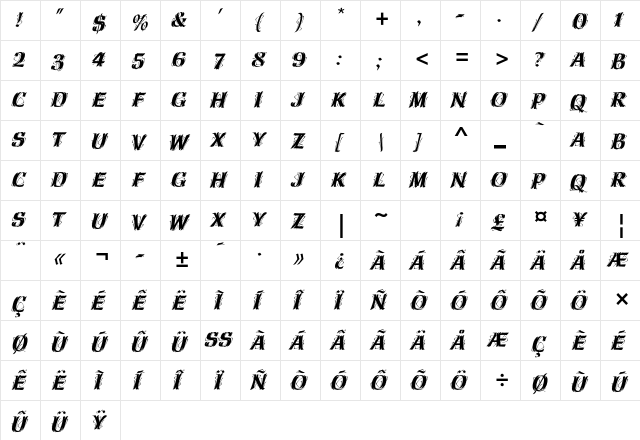
Hazel Std Regular
| Designer | Phill Grimshaw |
Design Context for Hazel Std Typeface
Hazel Std is a composed and adaptable typeface that performs quietly and consistently across a wide range of design contexts.